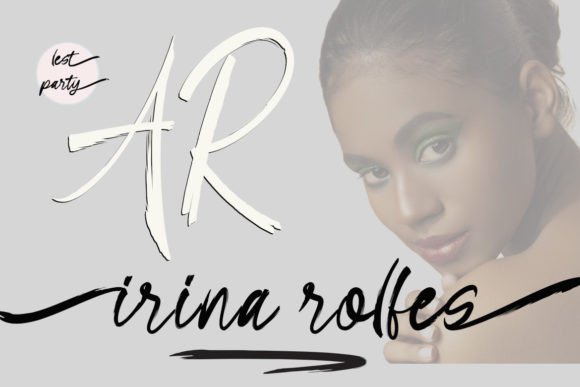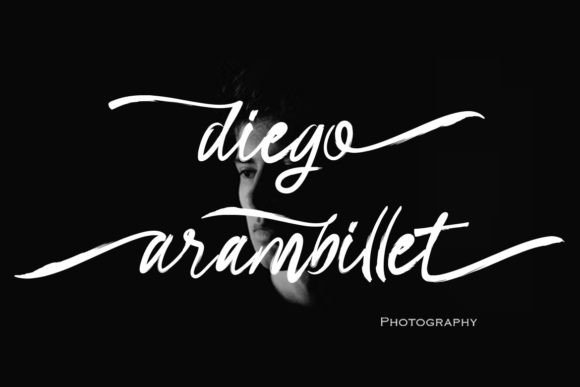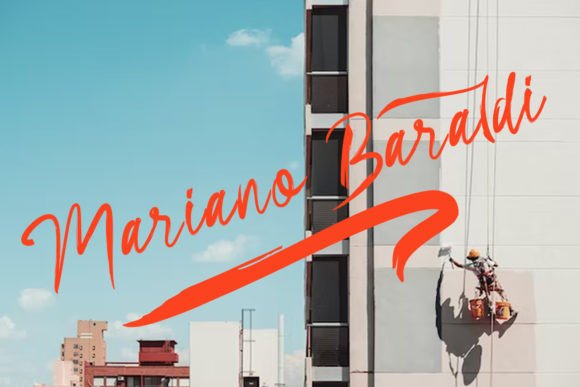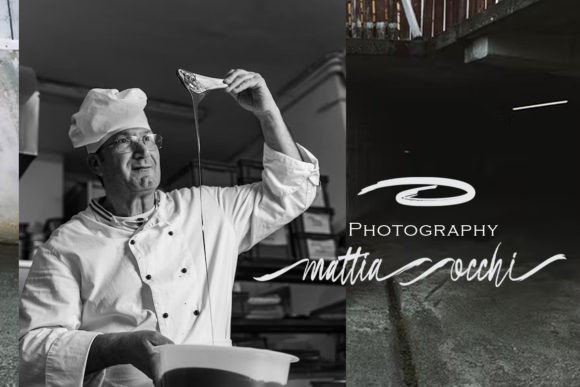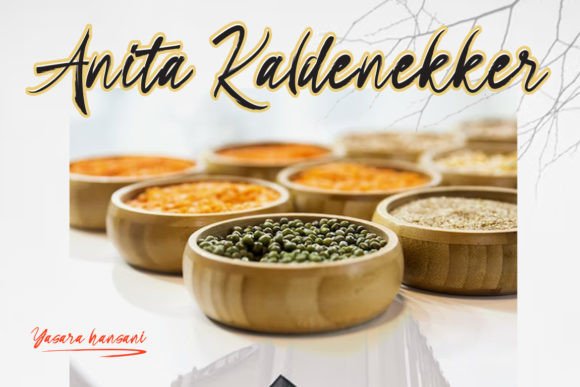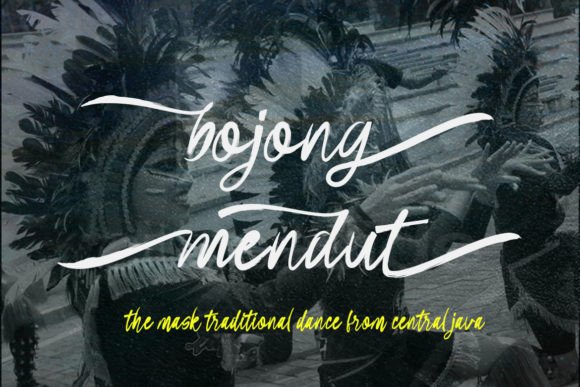
Introduction to Orchestra Font
Do you remember the moment when the perfect font choice transformed your design project from ordinary to extraordinary? For many designers, that moment is what makes all the difference between a mediocre and a stunning visual identity. The Orchestra Font is one of those game-changing design resources that can elevate your creative project to new heights.
With its lovely and timeless handwritten style, the Orchestra Font is a high-quality design tool that can be used to create eye-catching logos, branding, and quotes. Its PUA encoding allows for seamless access to all the glyphs and swashes, making it a versatile and user-friendly resource for designers. Whether you’re working on a personal project or a commercial design, the Orchestra Font is an invaluable asset that can help you achieve your creative vision.
- High-quality design: Orchestra Font is a beautifully crafted typeface, ideal for creative projects requiring a touch of elegance and sophistication.
- Large character set: Orchestra Font includes a comprehensive character set, covering a wide range of languages and special characters.
- Unique, modern style: Orchestra Font boasts a unique and modern design, perfect for adding a touch of creativity to any project.
Honest Review: Orchestra Font
I recently came across the Orchestra Font, and I must say it’s a great addition to any designer’s toolkit. One of the things that stood out to me was the high quality of the font, with crisp and clear lettering that makes it perfect for any creative project.
Of course, no font is perfect, and there are a few limitations to keep in mind. For example:
- ⚠️ The font may not be suitable for very small text sizes, as the lettering can become blurry.
- ⚠️ The font’s versatility may make it difficult to choose a specific style or variant, so be prepared to experiment.
Overall, I’m really impressed with the Orchestra Font, and I think it’s a great addition to any designer’s library. With its high quality, transparent background, and free download option, it’s a design resource that’s hard to beat.
Use a transparent background to make the font stand out. Experiment with different font sizes and styles to add visual interest to your design. Combine Orchestra Font with other design elements to create a cohesive look.
Orchestra Font is perfect for use in brochures, posters, and business cards. It’s also great for creating social media graphics and presentations. With its high-quality design and transparent background, Orchestra Font is a versatile design resource for any creative project.